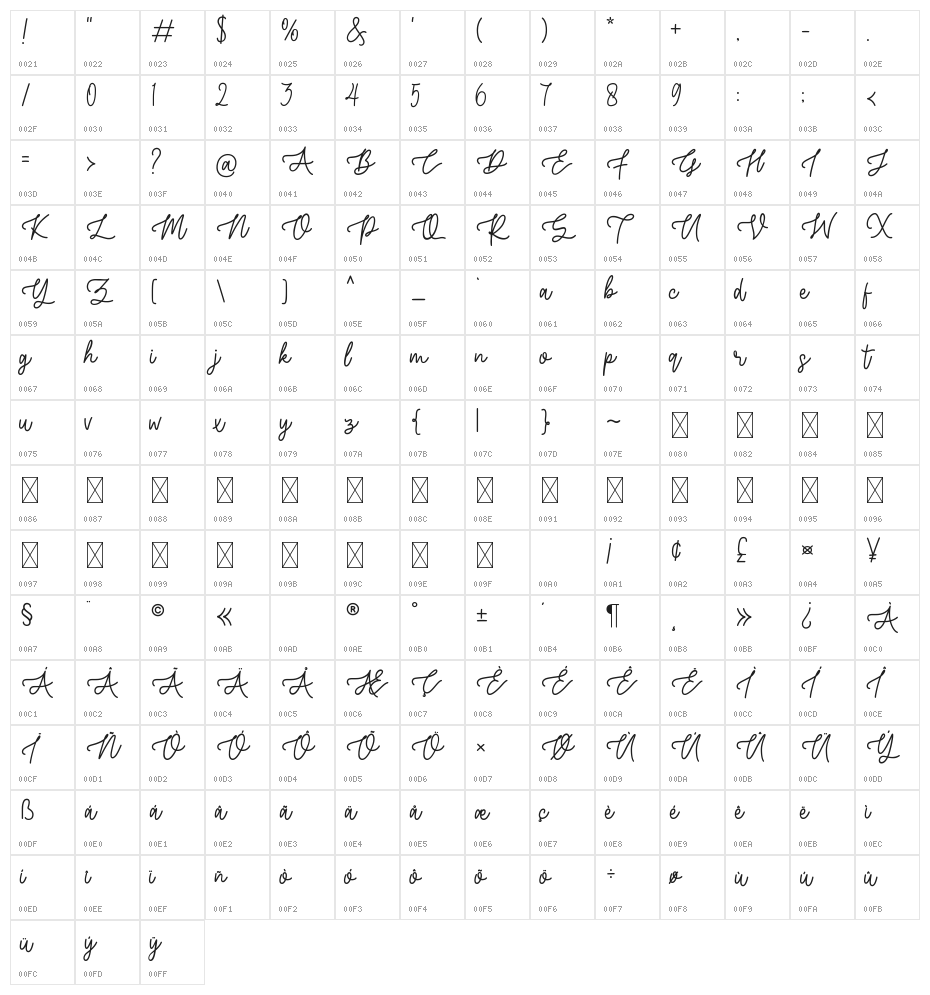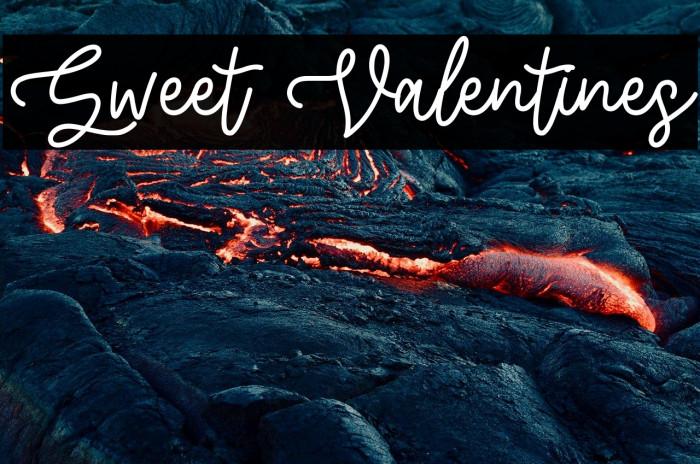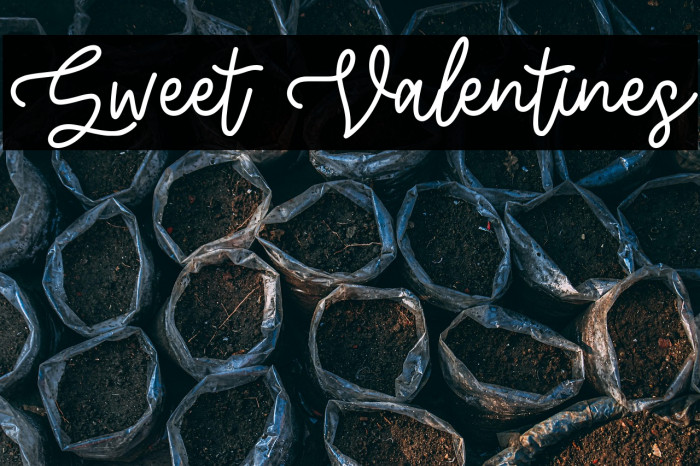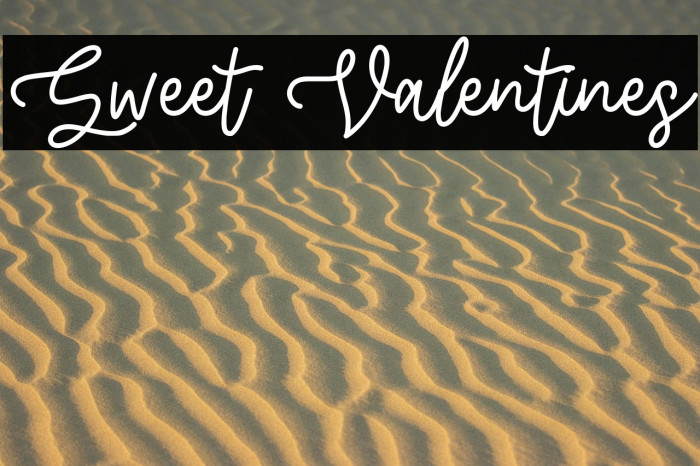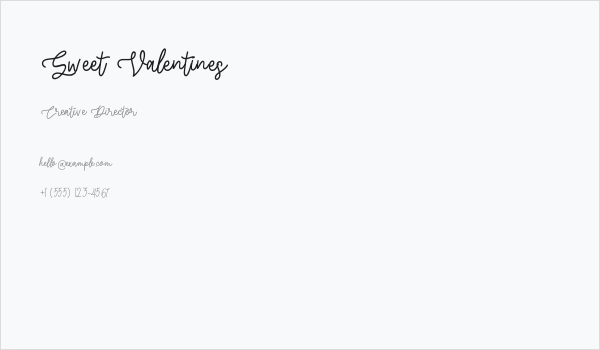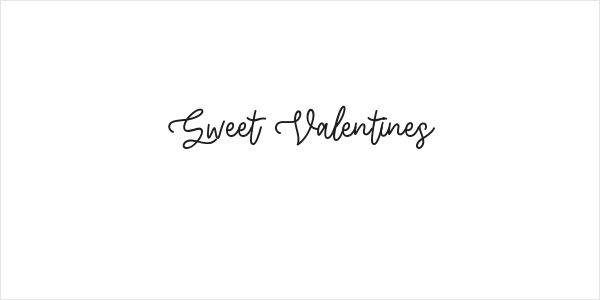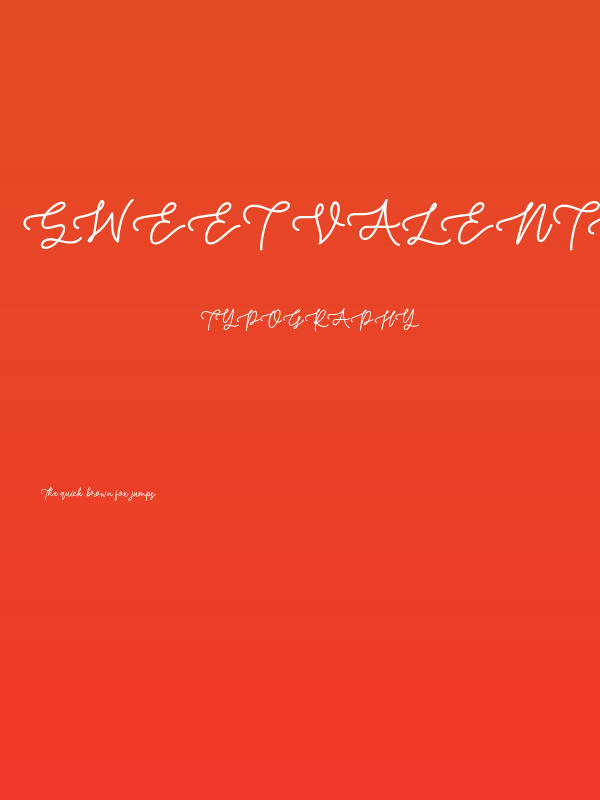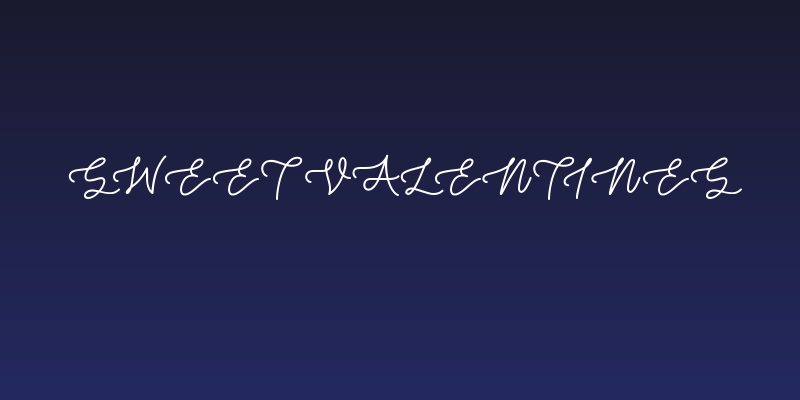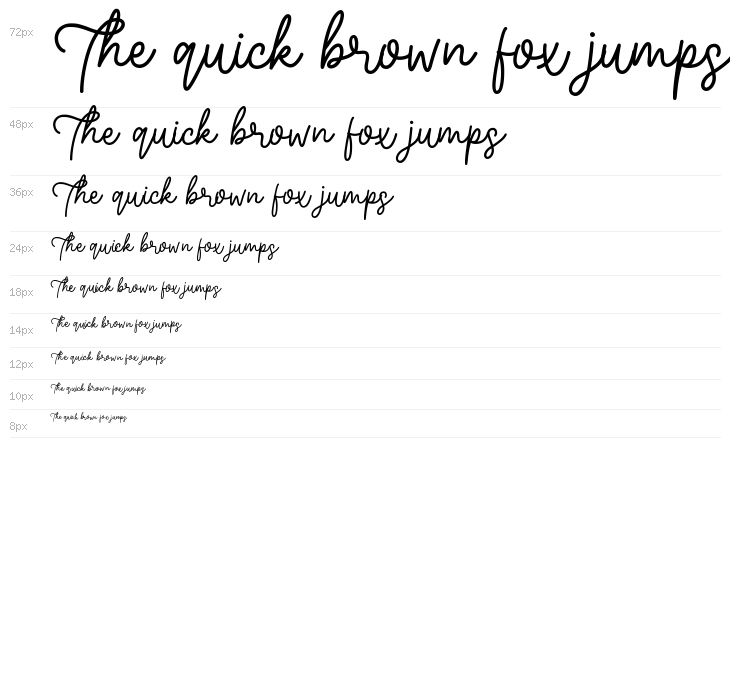
Sweet Valentines Font
Sweet Valentines Description
This font features a charming and fluid script style, characterized by its elegant, flowing curves and smooth connections between letters. The uppercase letters exhibit a graceful, looping design that adds a touch of sophistication, while the lowercase letters maintain a consistent, rounded form that enhances readability. The numerals are clear and well-proportioned, complementing the overall aesthetic. Special characters are thoughtfully designed to match the script's playful yet refined nature. This font exudes a sense of warmth and personal touch, making it ideal for projects that require a handwritten feel.
Use CaseLogos, Invitations, Greeting Cards
Proposed ProjectsIdeal for wedding invitations, greeting cards, personal branding, and romantic-themed designs.